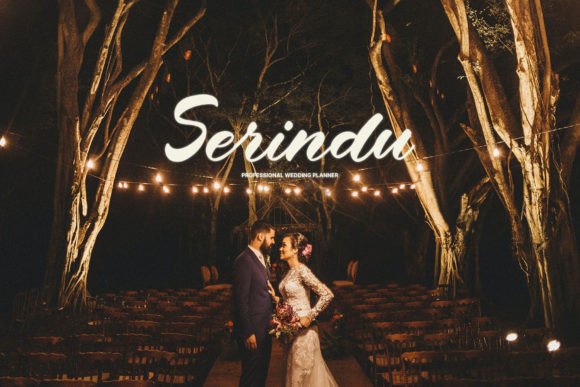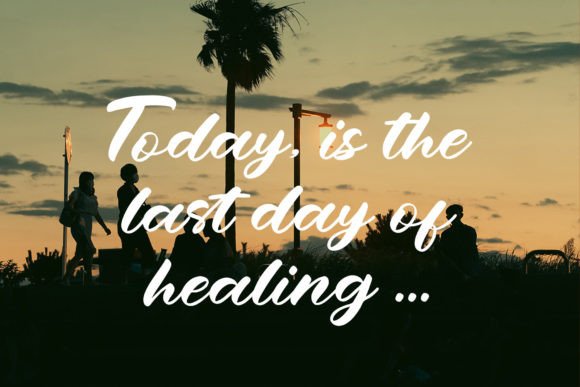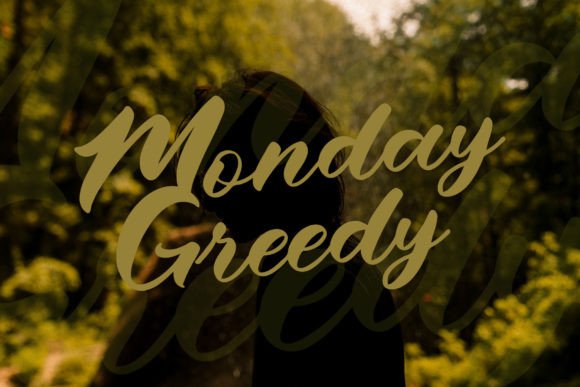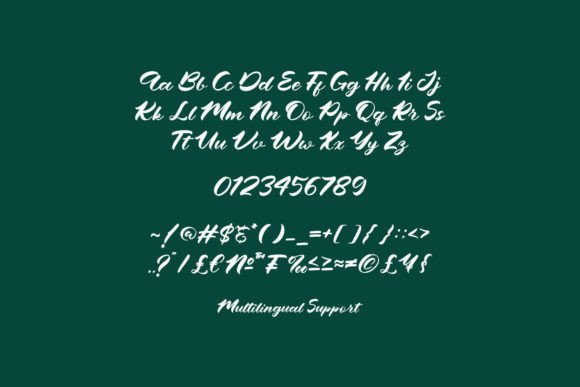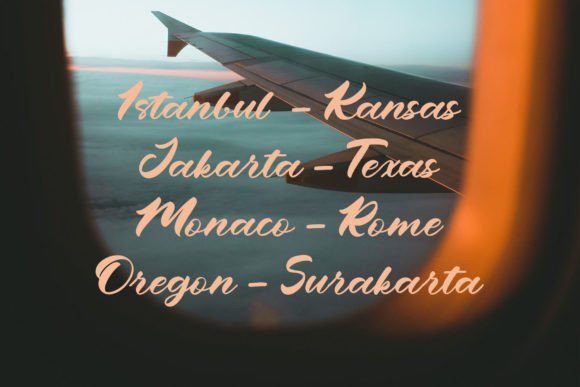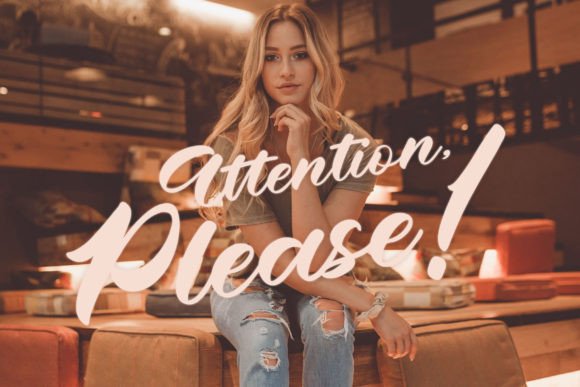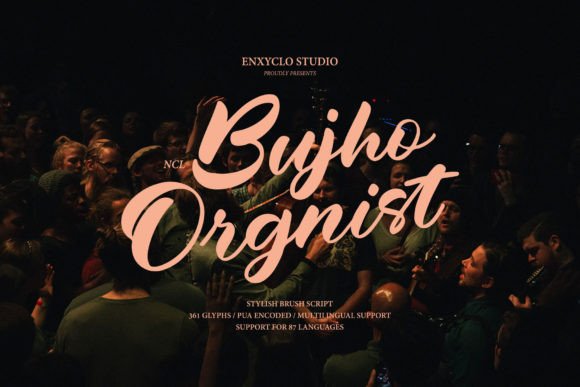
Introducing Bujho Orgnist Font: The Ultimate Handwritten Brush Script for Your Creative Projects
Are you a designer or crafter looking for a unique and stunning font to add a personal touch to your designs? Look no further than Bujho Orgnist, a bold and gorgeous handwritten brush script font. This versatile font is perfect for a wide range of creative projects, from wedding invitations and thank you cards to quotes, greeting cards, logos, business cards, and more.
What Makes Bujho Orgnist Font So Special?
Bujho Orgnist is a carefully crafted font that boasts a distinctive handwritten look, making it perfect for designs that require a personal and emotional touch. Its bold and gorgeous strokes are sure to capture the attention of your audience, adding a touch of elegance and sophistication to your designs.
Key Features of Bujho Orgnist Font
- Handwritten Brush Script: Bujho Orgnist is a true handwritten brush script font, with each letter and stroke carefully crafted to mimic the look and feel of a brush pen.
- Bold and Gorgeous: The font features bold and gorgeous strokes that are sure to make your designs stand out.
- Versatile: Bujho Orgnist is perfect for a wide range of creative projects, from wedding invitations and greeting cards to logos and business cards.
- Elegant and Sophisticated: The font adds a touch of elegance and sophistication to your designs, making it perfect for designs that require a personal and emotional touch.
Use Cases for Bujho Orgnist Font
Bujho Orgnist is a versatile font that can be used for a wide range of creative projects, including:
- Wedding Invitations: Add a personal touch to your wedding invitations with Bujho Orgnist, making them truly special and memorable.
- Thank You Cards: Express your gratitude with style using Bujho Orgnist, perfect for thank you cards and other correspondence.
- Quotes: Make your quotes stand out with Bujho Orgnist, adding a touch of elegance and sophistication to your designs.
- Greeting Cards: Create stunning greeting cards for any occasion with Bujho Orgnist, perfect for birthdays, holidays, and more.
- Logos: Use Bujho Orgnist to create a unique and memorable logo for your business or brand.
- Business Cards: Add a personal touch to your business cards with Bujho Orgnist, making them truly stand out.
Why Choose Bujho Orgnist Font?
With so many fonts to choose from, why should you choose Bujho Orgnist? Here are just a few reasons:
- Unique and Memorable: Bujho Orgnist is a truly unique and memorable font that will make your designs stand out.
- Elegant and Sophisticated: The font adds a touch of elegance and sophistication to your designs, making it perfect for designs that require a personal and emotional touch.
- Versatile: Bujho Orgnist is perfect for a wide range of creative projects, making it a great addition to your font library.
| Font Name | Bujho Orgnist Font |
| Author | Enxyclo |
In conclusion, Bujho Orgnist is a bold and gorgeous handwritten brush script font that is perfect for designers and crafters looking to add a personal touch to their designs. With its unique and memorable strokes, elegant and sophisticated look, and versatility, Bujho Orgnist is a great addition to any font library.